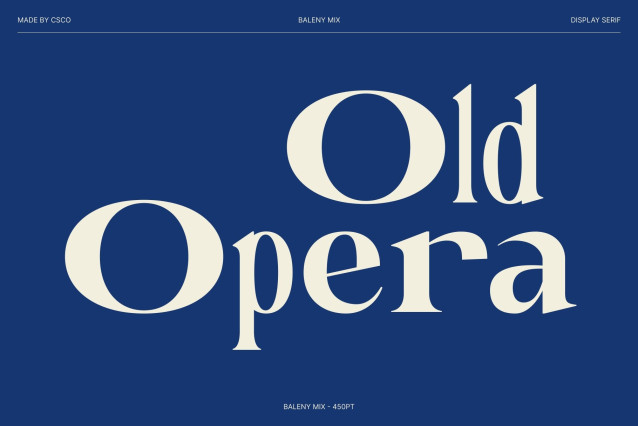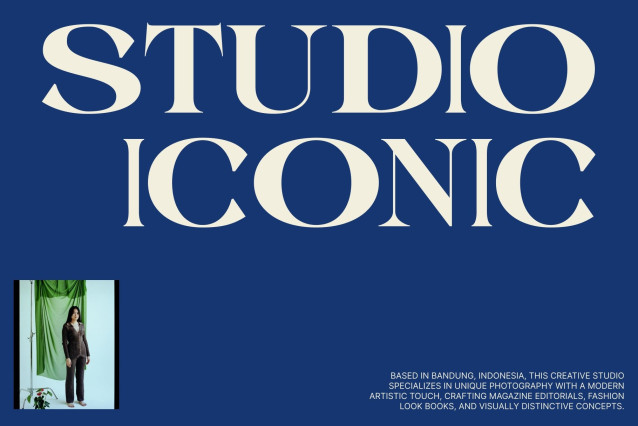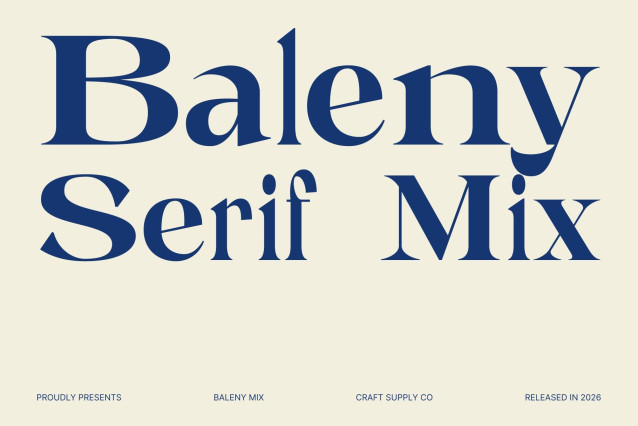
Baleny Mix – Modern Experimental Serif: Refined Beauty with Contemporary Expression
Modern Serif with Mixed Style Character
This is a modern serif font that embodies refined elegance while embracing an experimental spirit. Designed with sleek proportions and stylish details, this typeface introduces a distinctive mixed-style concept that adds rhythm and personality to every composition. It blends classic serif sophistication with contemporary creativity, creating a unique typographic voice that feels fresh and expressive.
A Harmonious Fusion of Regular and Bold Letterforms
The signature strength of this font lies in its thoughtful blend of regular and bold characters. This mix creates visual contrast and a dynamic typographic flow, allowing text to feel lively while maintaining balance and harmony. The combination enhances hierarchy and gives designers more freedom to create eye-catching compositions without sacrificing readability.